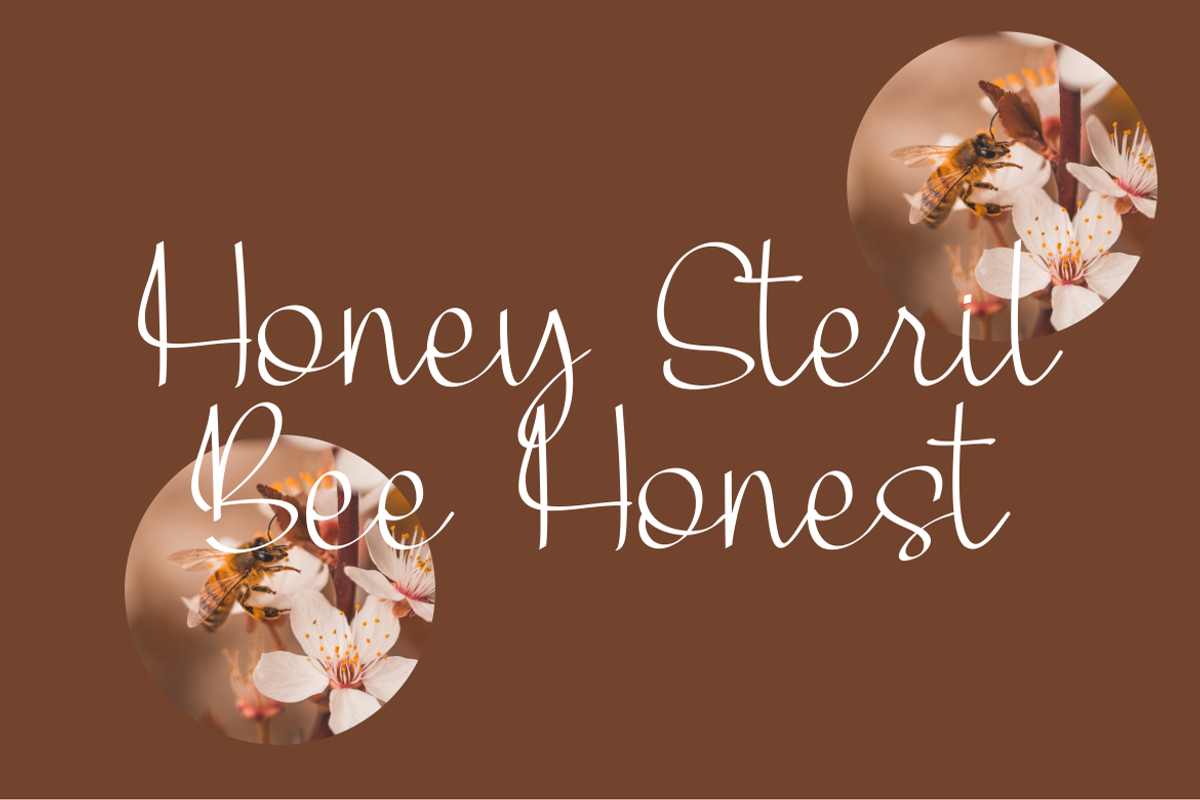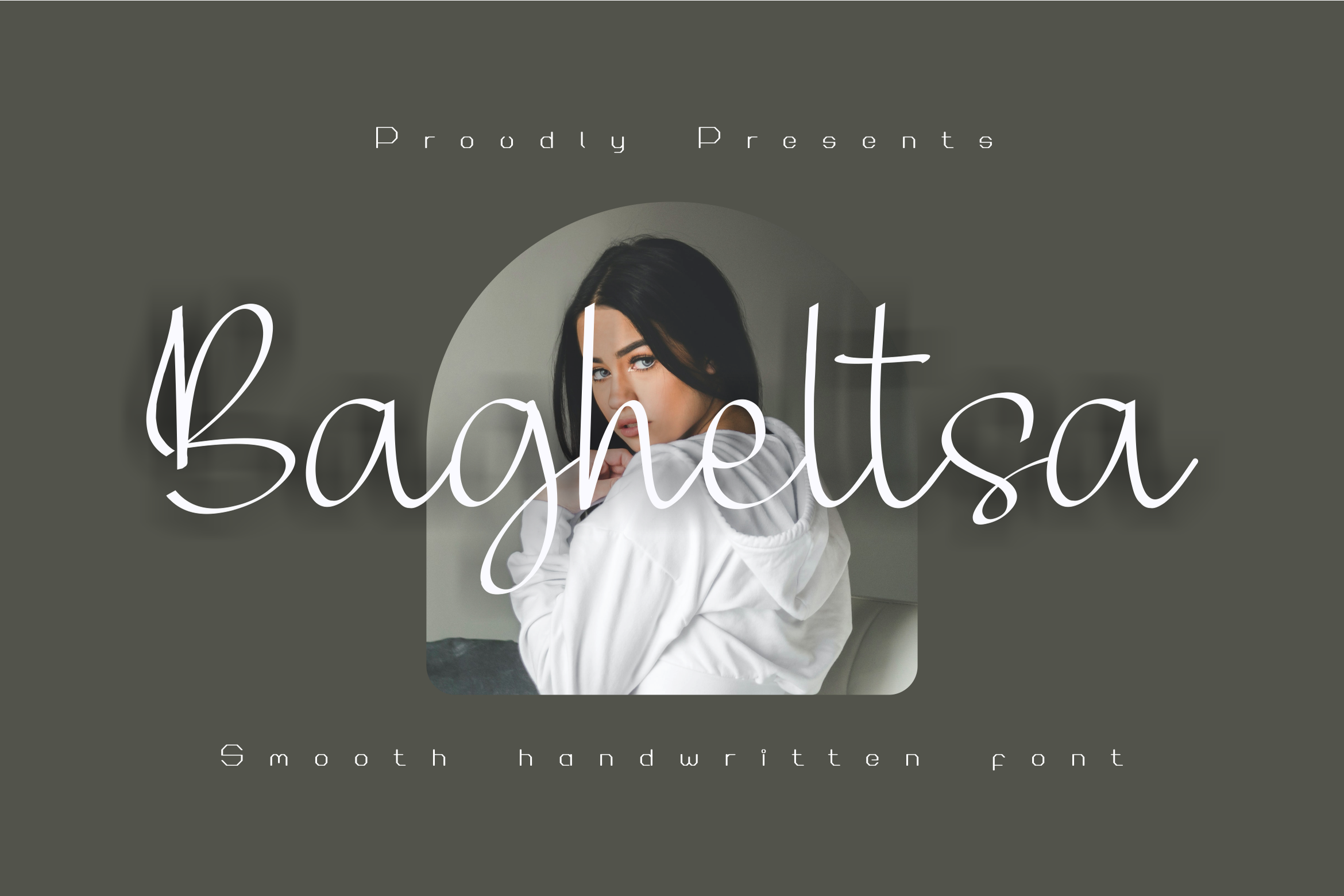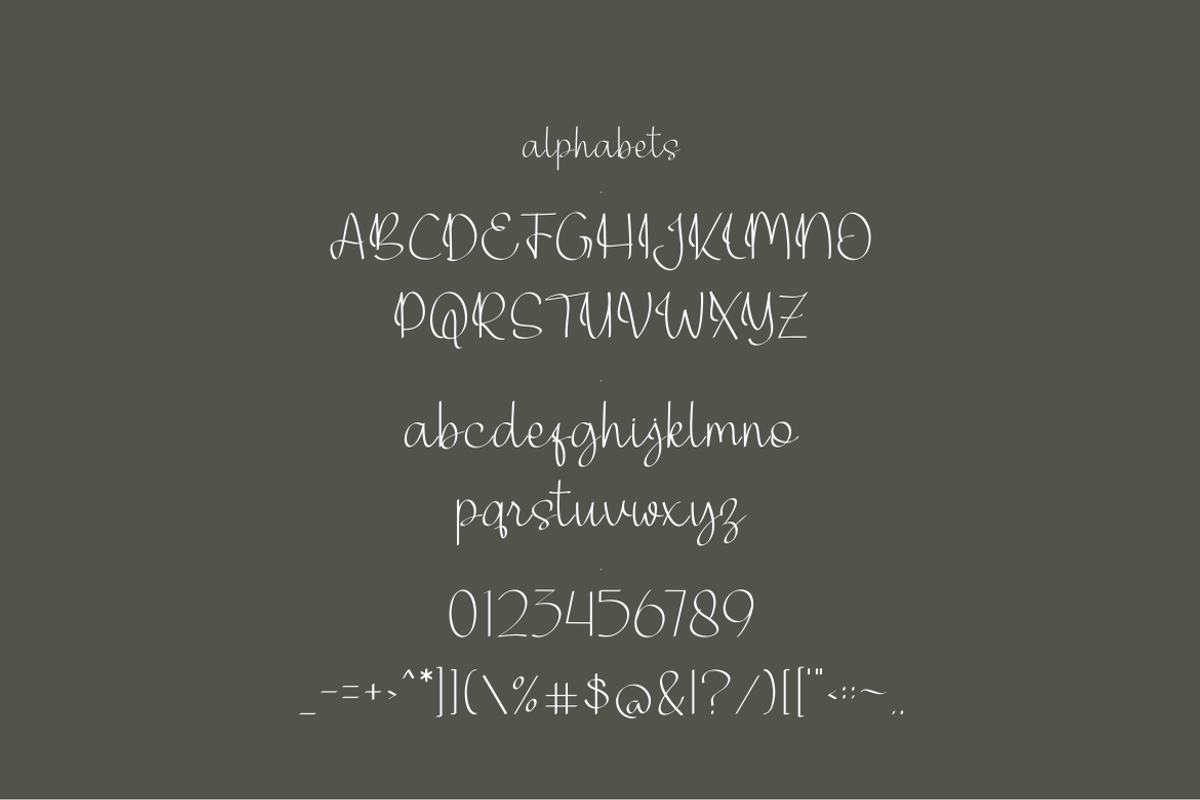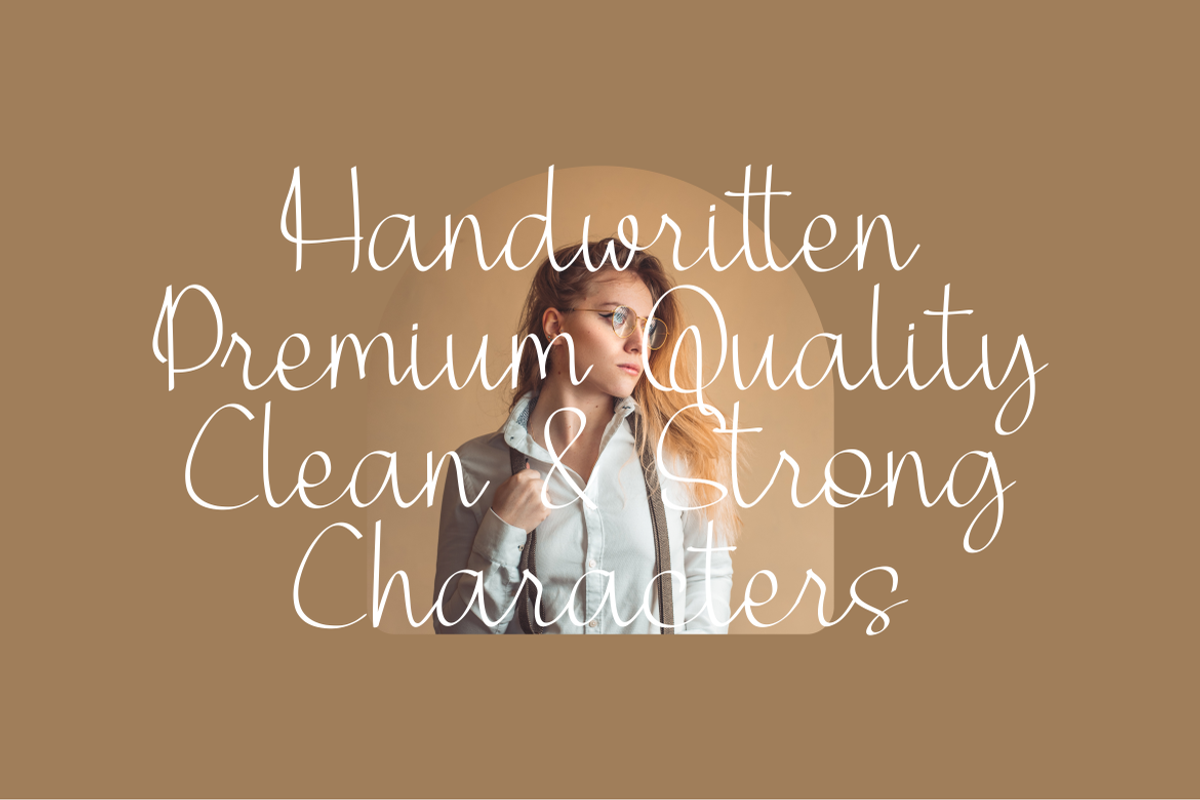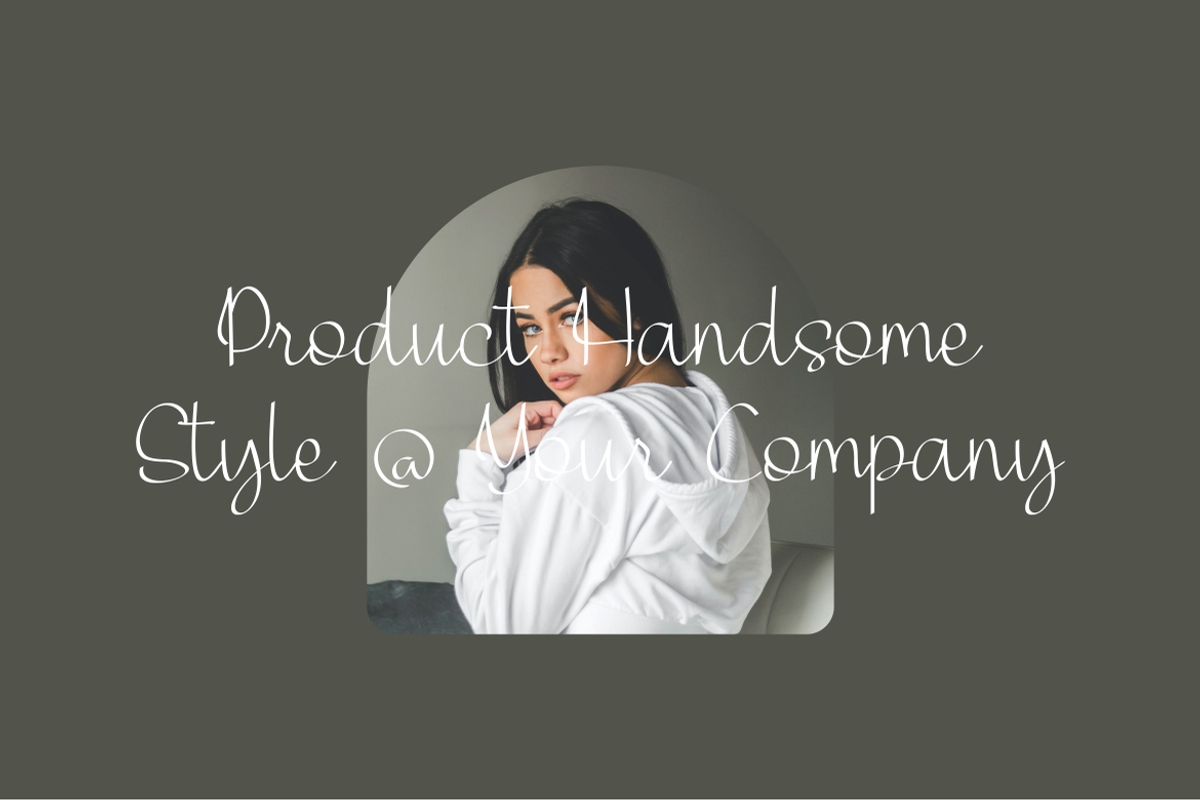
Bagheltsa Font
Bagheltsa Font It has a elegant, classy look and modern. It’s a great font for fashion, apparel projects, signature, album cover,logo, branding, magazine, social media, & advertisements, but also works great for other projects.